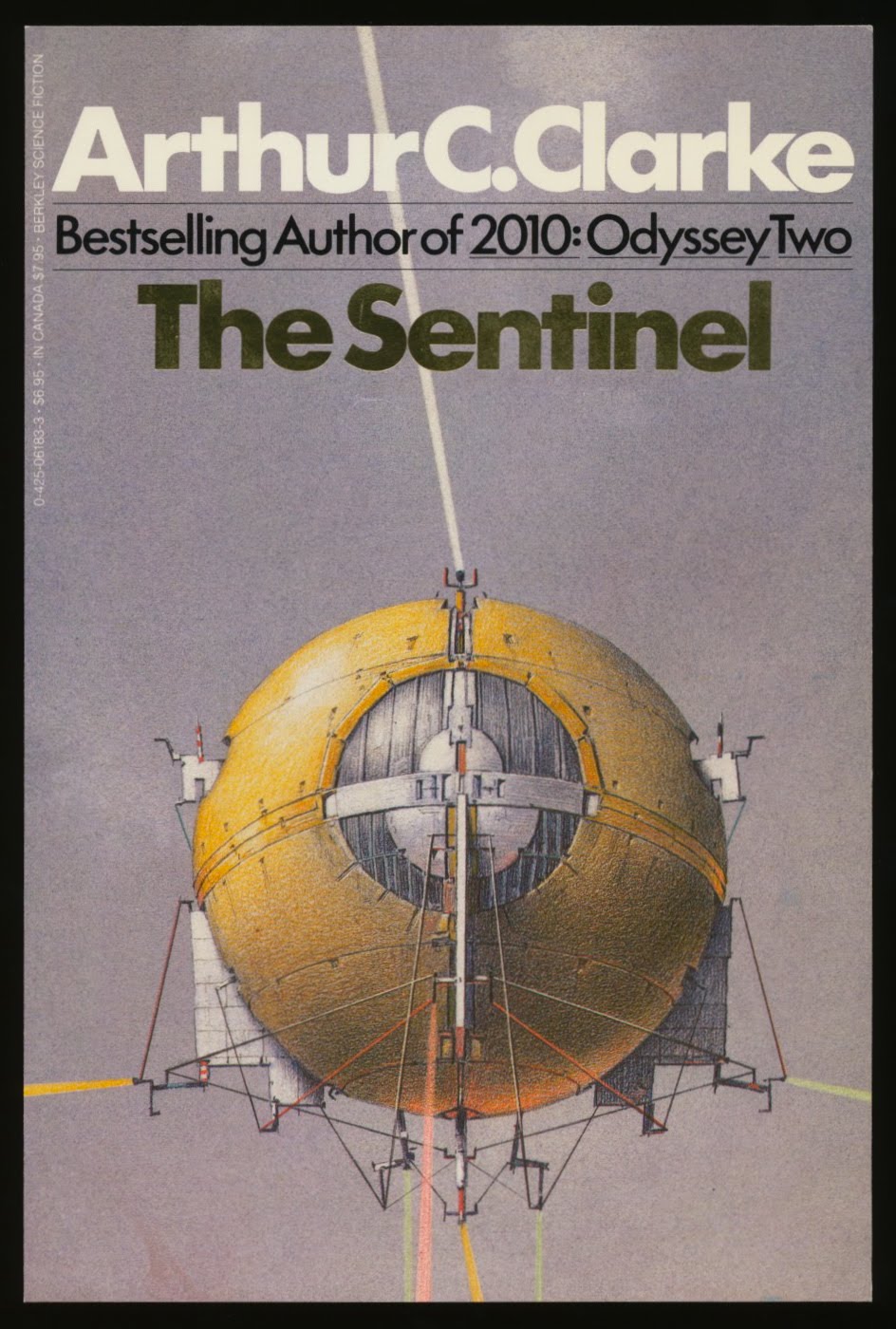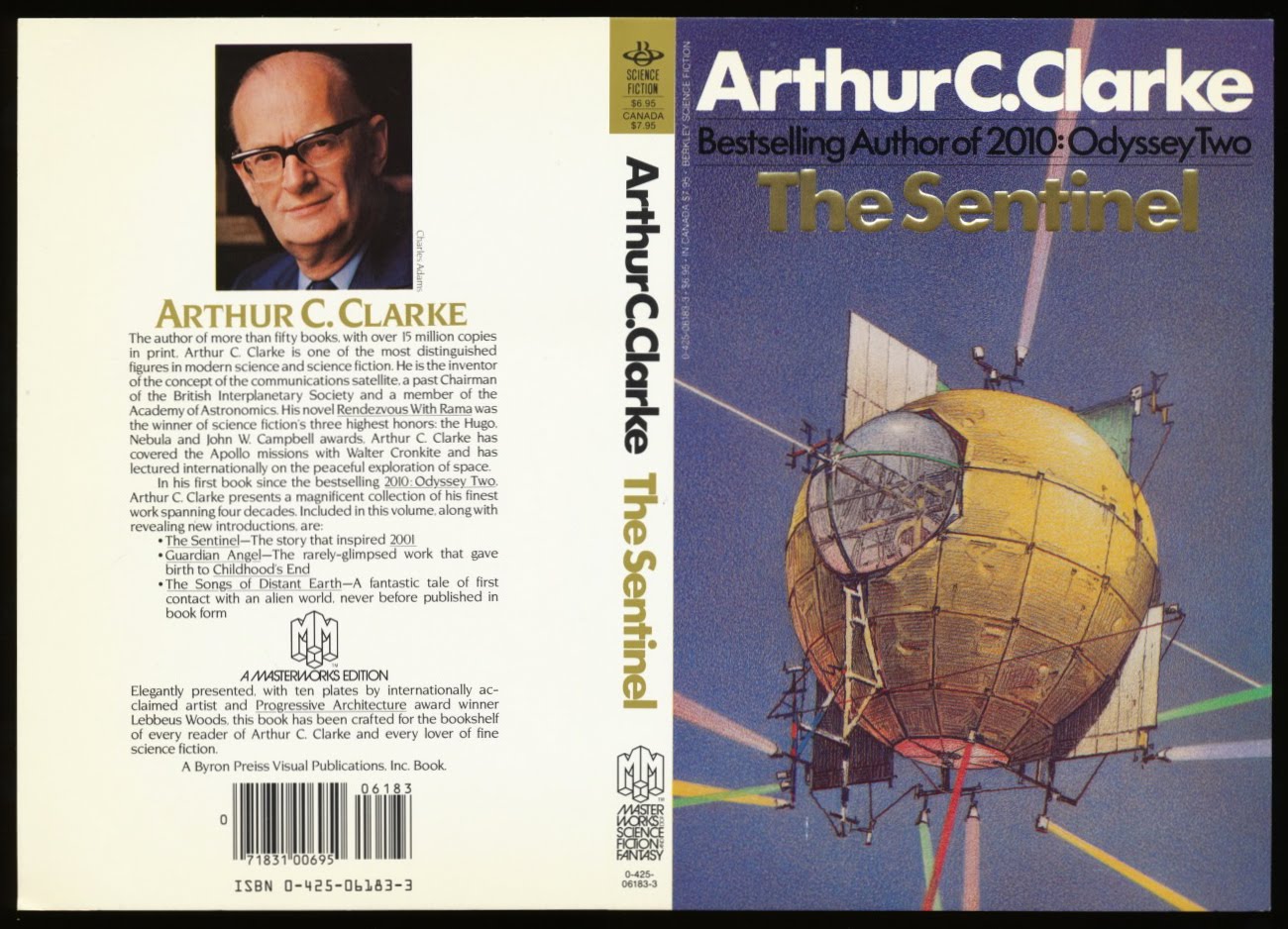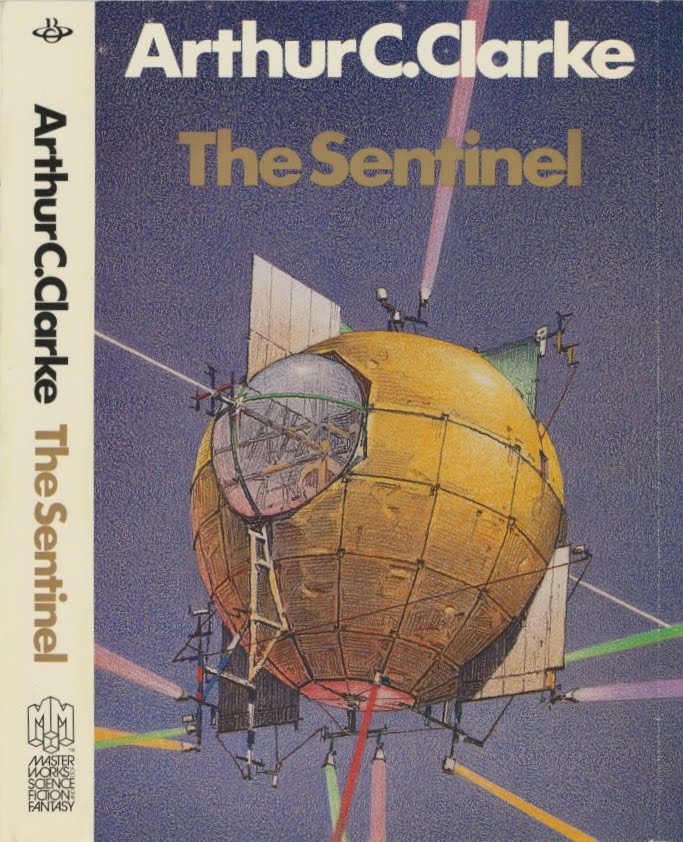
The late Byron Preiss produced the series, Masterworks of Science Fiction and Fantasy, for Berkley Books in the early 1980s. The Sentinel (1983) was a collection of nine vintage short stories by Arthur C. Clarke, who wrote introductions for the book and each story. Included in the volume was “The Sentinel”, which was one of a several stories used in the Stanley Kubrick film, 2001: A Space Odyssey. I was responsible for the cover and interior design. The late Lebbeus Woods illustrated the stories.
To celebrate the book’s release, Byron and the publisher held a party at the club Danceteria, located at 30 West 21st Street. Here’s what Charles Platt said about the event in the newsletter Ansible 36, December 1983:
At the beginning of November, Putnam/Berkley collaborated with book publisher [sic; producer] Byron Preiss in an extravaganza at Danceteria (fashionable NY midtown disco to mark publication of a collection of old Arthur C. Clarke stories being hyped as a ‘major publishing event’. Banks of colour TVs showed 2001 while a competing sound-system played ‘background music’ and guests shouted in each other's ears. Highlight of the evening: ‘a special message from Clarke, a 1-minute taped phone call that sounded like Hurro ar uh in nuh orrrrk thisss Arrrthr C. Clarke via brrrrkkkk communications satellite rrhhhggttss awrr sss... while at the same time the TVs blared 'Open the pod bay door, Hal!’ etc…
There was a bit more to Clarke’s message. Byron, Lebbeus and I were standing in the center of the crowd when the message was played. I was pleasantly surprised to hear Clarke speak my name as one of the book’s contributors.
Lebbeus’s cover sketch was approved with changes.
A cover proof was made with Lebbeus’s artwork,
with the number of rays of light reduced.
Berkley promoted the the series and the book with a poster (four illustrations from
the book), which was sent to booksellers. Shown above are panels one through four.
Later, Berkley had second thoughts about the art and asked for a different approach.
The revised trade paperback cover proof. Front cover and spine fonts are from the
Futura family. Berkley wanted the font that was used on the 1968 movie poster.
The title was embossed. Back cover fonts are from the ITC Novarese family.
My original title page design was a spread but it was rejected.
Opening spread for the story “The Sentinel”. Excerpts from Clarke's introduction:
Next to “The Star” and “The Nine Billion Names of God,” I suppose “The Sentinel” is my best-known short story—though not for itself, but as the seed from which 2001: A Space Odyssey sprang, twenty years after is was written in 1948….
I am continually annoyed by careless references to “The Sentinel” as “the story on which 2001 is based”; it bears about as much relation to the movie as an acorn to the resultant full-grown oak. (Considerably less, in fact, because ideas from several other stories were also incorporated.) Even the elements that Stanley Kubrick and I did actually use were considerably modified. Thus the “glittering, roughly pyramidal structure…set in the rock like a gigantic, many-faceted jewel” became—after several modifications—the famous black monolith. And the locale was moved from the Mare Crisium to the most spectacular of all lunar craters, Tycho—easily visible to the naked eye from Earth at Full Moon….
2001: A Space Odyssey opened in the United States in early April 1968.
The Barnes and Noble 1996 edition used the first version of
Lebbeus’s cover art; jacket design by Lynn J. Binder. A trade
paperback edition, with a new cover, was published by iBooks
in 2000, followed by a mass market paperback edition in 2004.
Rescue Party
Guardian Angel
Breaking Strain
Jupiter V
Refugee
The Wind from the Sun
A Meeting with Medusa
The Songs of Distant Earth